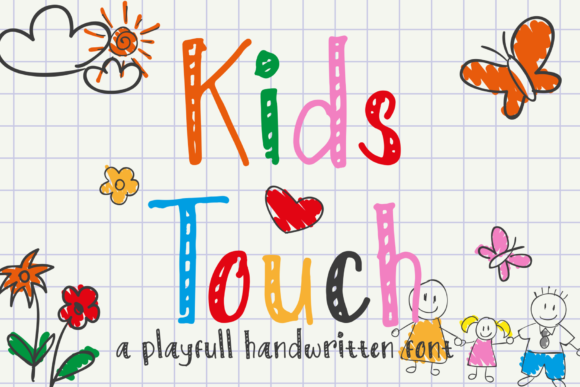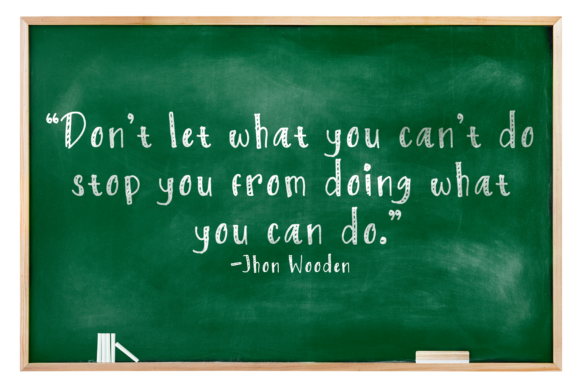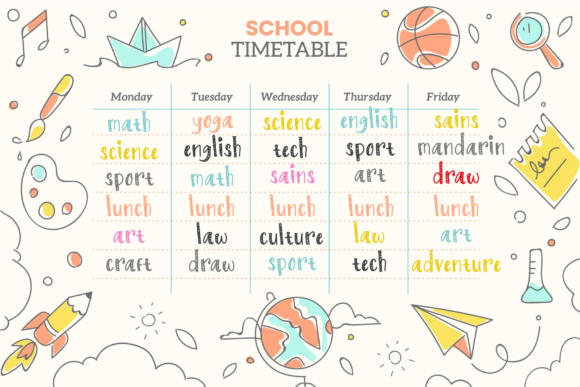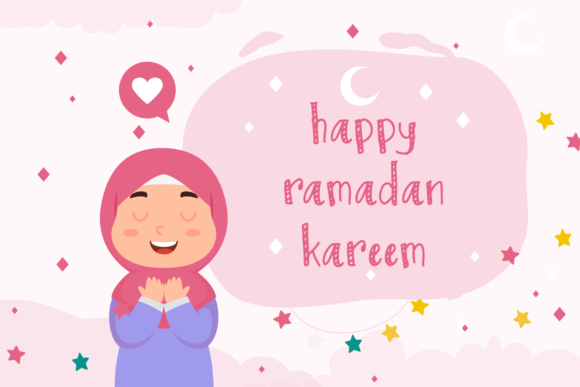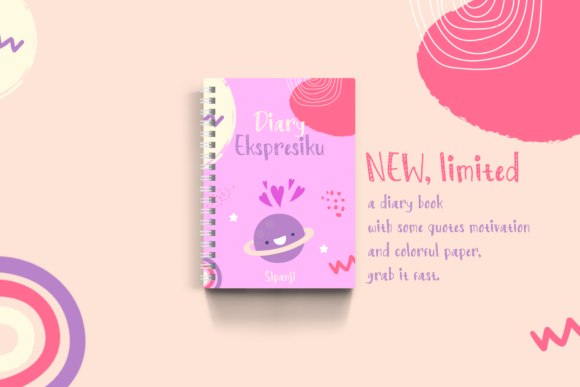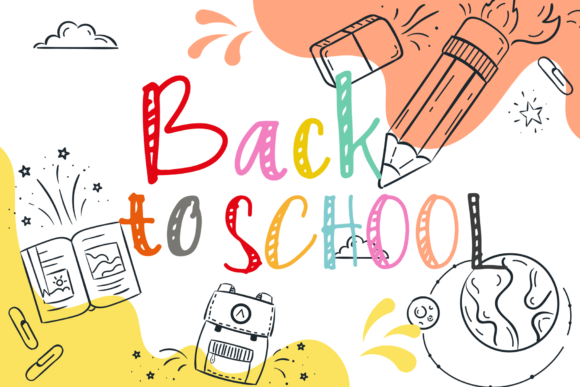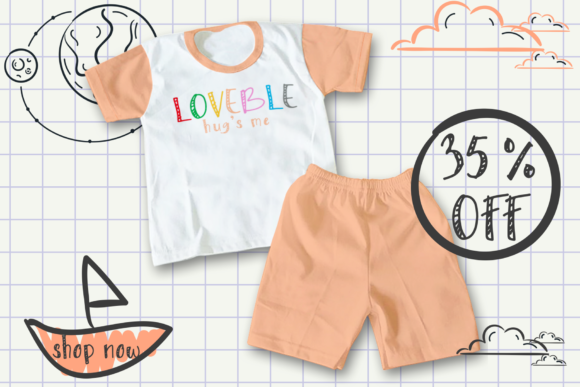
The Perfect Chalkboard Charm: Kids Touch Font
Who else remembers the magic of standing in front of a dusty old chalkboard, watching as the teacher’s words came to life in a flurry of colorful chalk? The smell of the chalk, the feel of the board beneath your fingers – it’s a sensory experience like no other. As a designer, I’ve always been on the lookout for ways to capture that same whimsy and charm in my work.
Enter Kids Touch Font, the perfect solution for adding a personal and realistic touch to your designs. This adorable display font is specifically designed for chalkboard quotes and teaching materials, and its authentic look and feel will transport your audience back to those carefree days of childhood learning. Whether you’re a teacher, a designer, or just someone who loves a good chalkboard aesthetic, Kids Touch Font is a valuable addition to your toolkit.
- Unique Characteristic: The font features a unique, child-friendly design with rounded edges and simplified letterforms, making it perfect for educational and children’s content.
Designer Review: Kids Touch Font
Overall, I think the Kids Touch Font has some great qualities that make it suitable for its intended purpose, but it also has some limitations that might make it less versatile for other projects.
- The font’s playful and whimsical feel is perfect for children’s educational materials, nursery rhymes, or any other project that requires a friendly and approachable tone.
- The font’s characters are well-designed, with clear and legible shapes that are easy to read, even for younger children.
- The font comes in a variety of weights and styles, making it easy to customize and adapt to different design needs.
- The font’s design is quite generic and might not stand out in a crowded market. It’s not particularly innovative or bold, which might make it less memorable.
- The font’s characters are not particularly detailed or intricate, which might make it less suitable for projects that require a high level of sophistication or elegance.
Overall, I think the Kids Touch Font is a solid choice for projects that require a friendly and approachable tone, but it might not be the best fit for more complex or sophisticated projects.
Here are some tips to get the most out of the Kids Touch Font:
- Use it for children’s book covers, illustrations, and educational materials.
- Combine it with other playful fonts to create a unique look.
The Kids Touch Font is perfect for:
- Children’s book covers and illustrations.
- Education materials, such as worksheets and activity sheets.
- Playful branding and marketing materials.